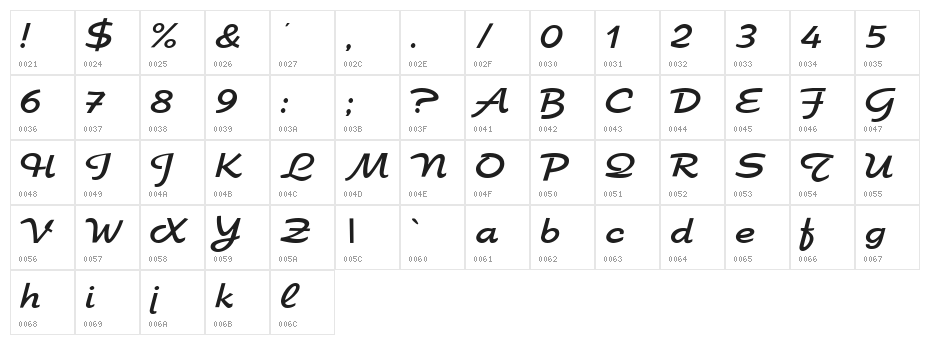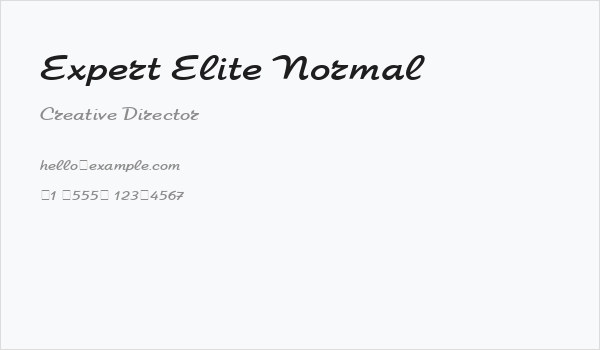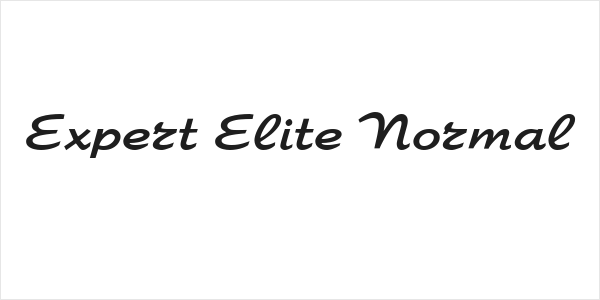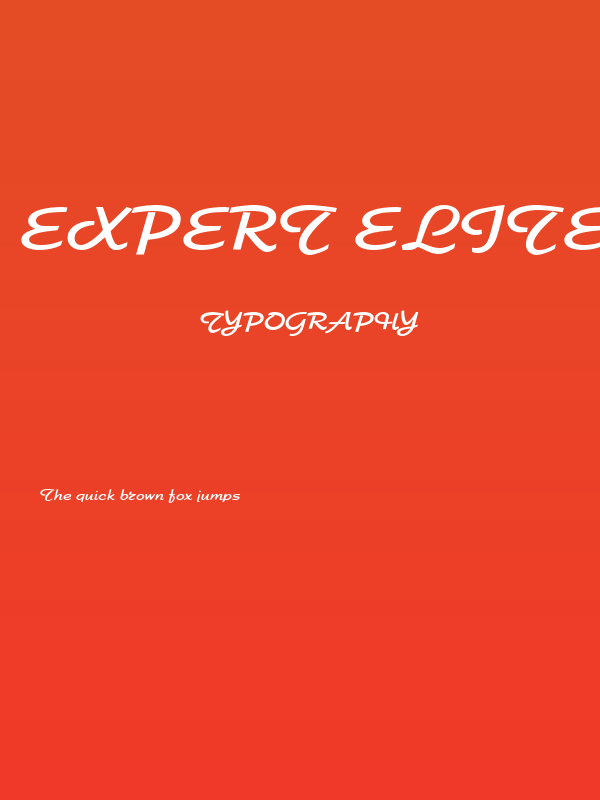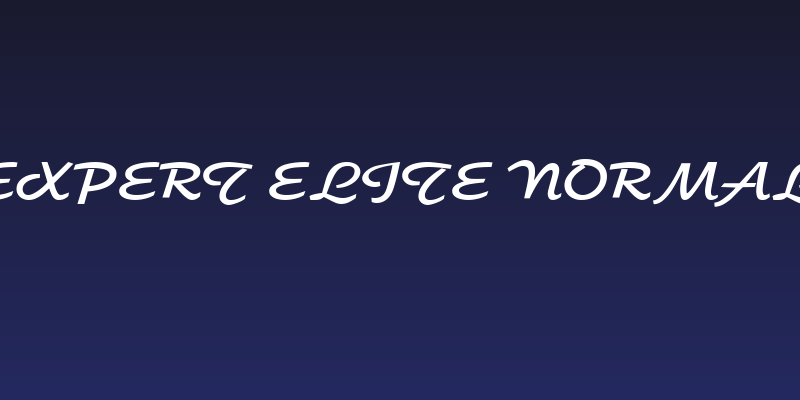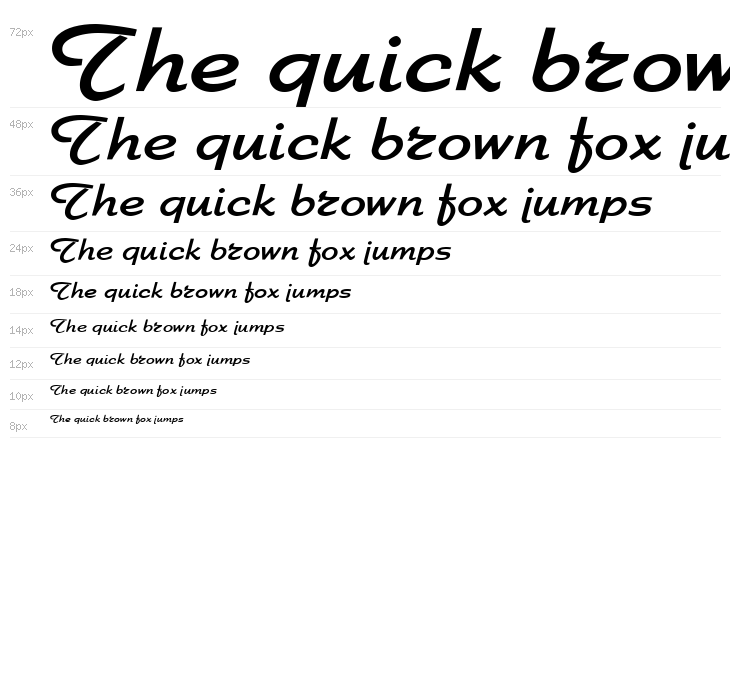
Expert Elite Normal Font
Expert Elite Normal Description
This font exhibits a dynamic and flowing script style, characterized by its elegant and slightly slanted letterforms. The uppercase letters are bold and expressive, with distinctive curves and flourishes that add a touch of sophistication. The lowercase letters maintain a consistent rhythm, complementing the uppercase with their smooth and rounded shapes. The numerals are clear and legible, designed to match the overall aesthetic of the font. Special characters are thoughtfully integrated, ensuring versatility in various design contexts. This font's style is both classic and modern, making it suitable for a wide range of applications.
| Proposed Projects | Ideal for wedding invitations, branding, logo design, and elegant packaging. |